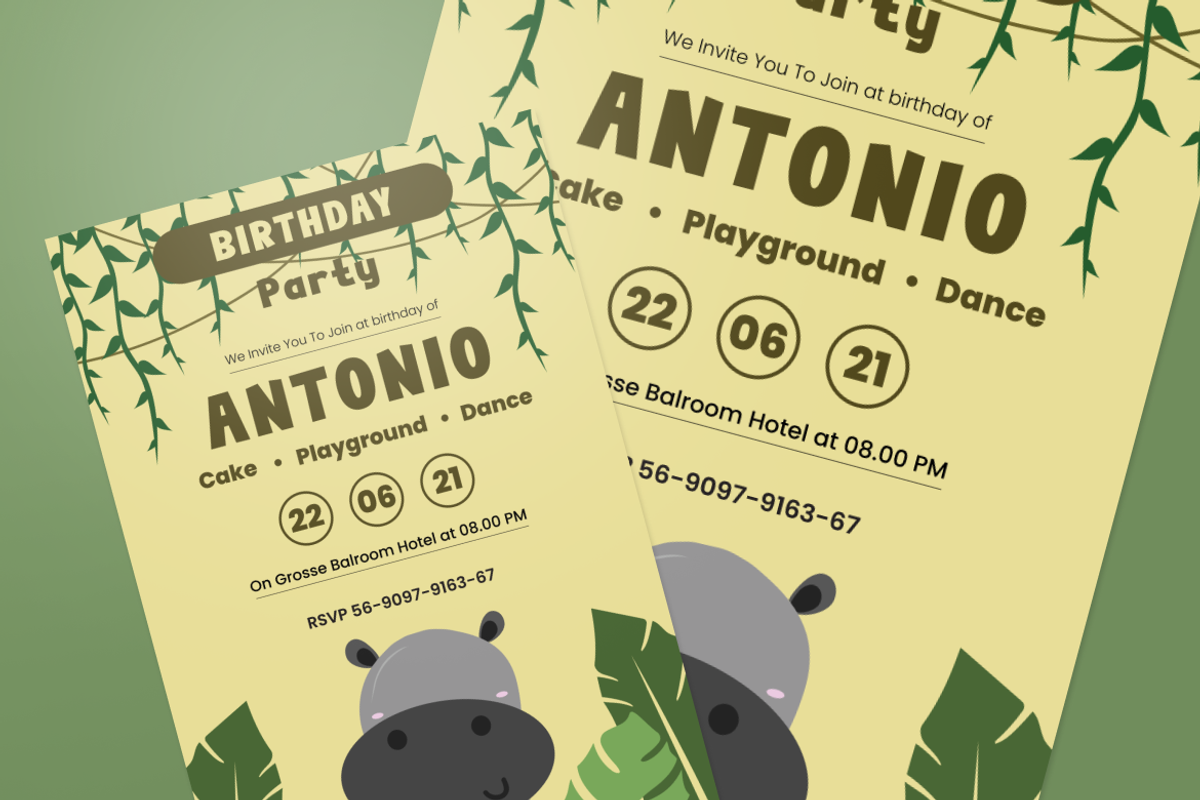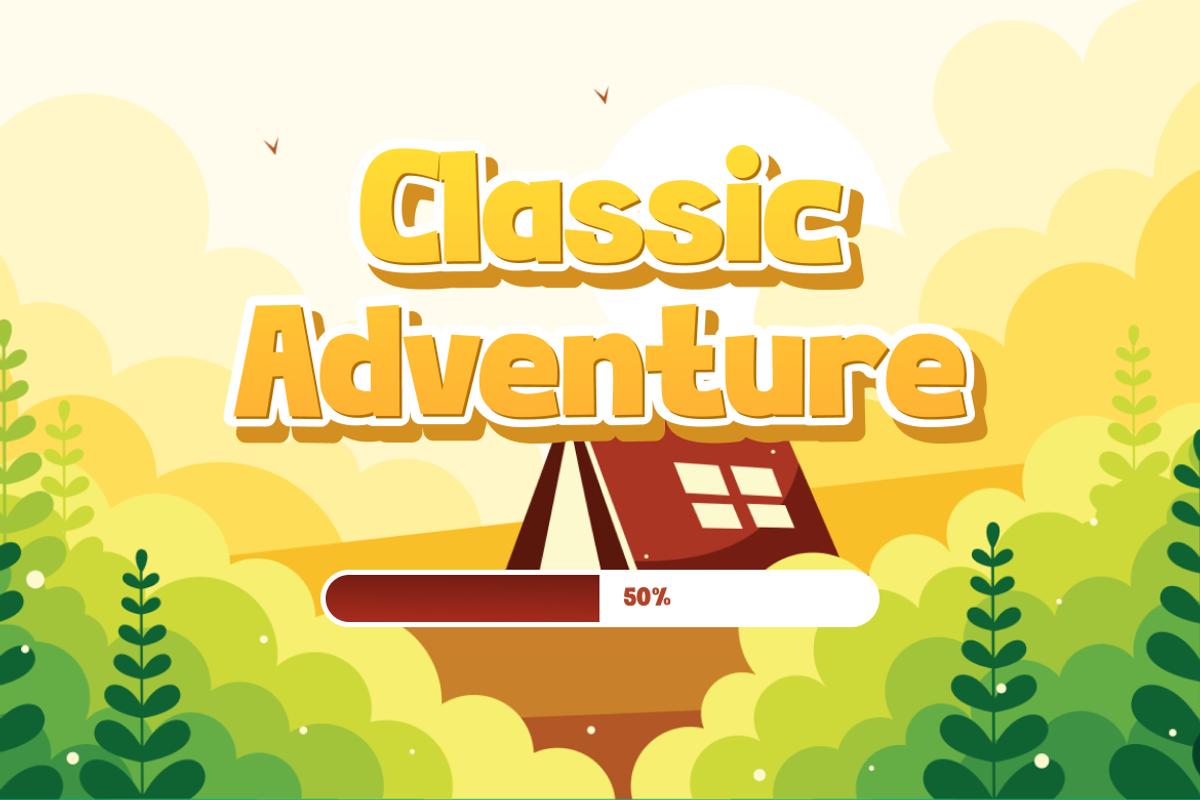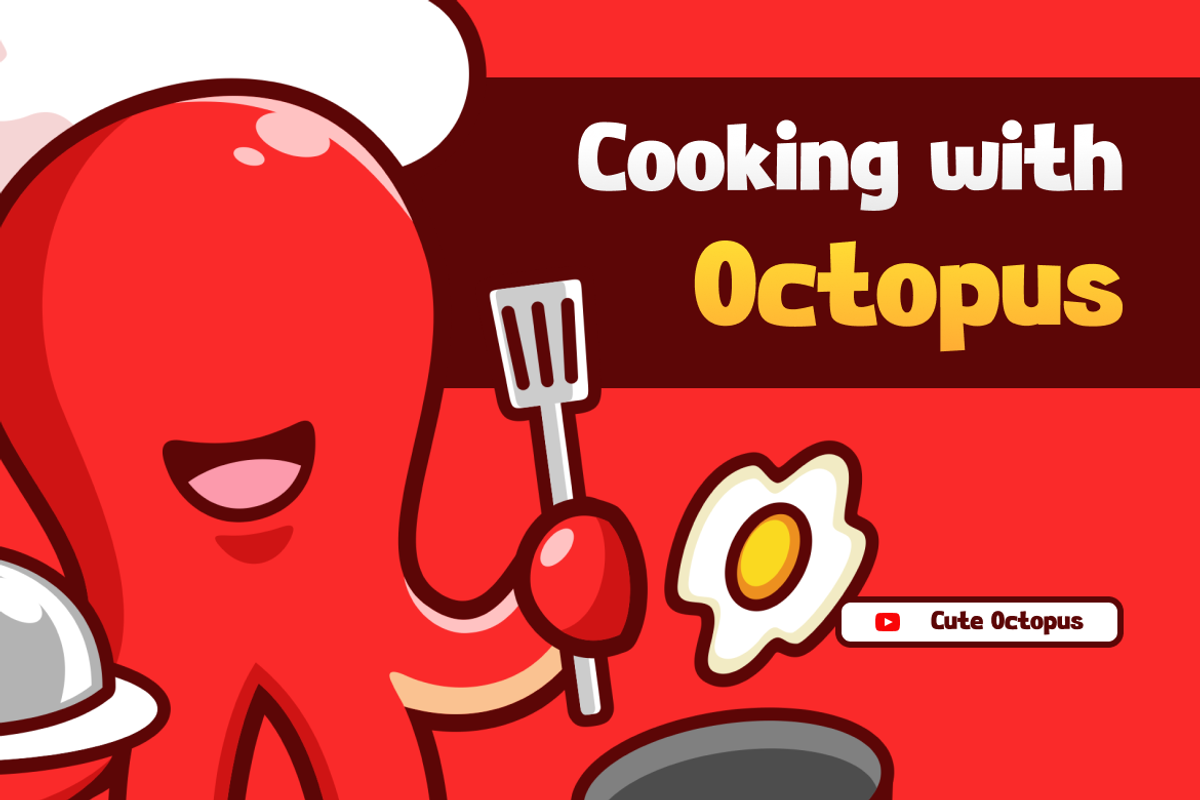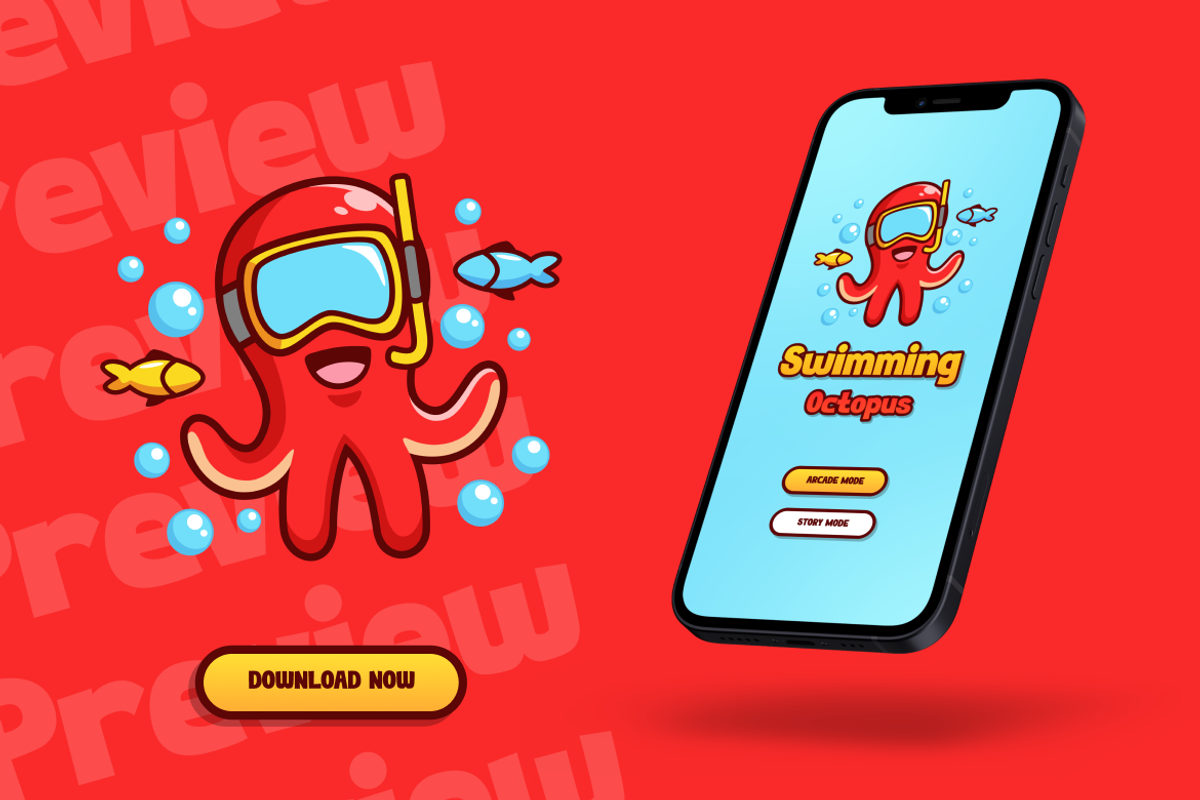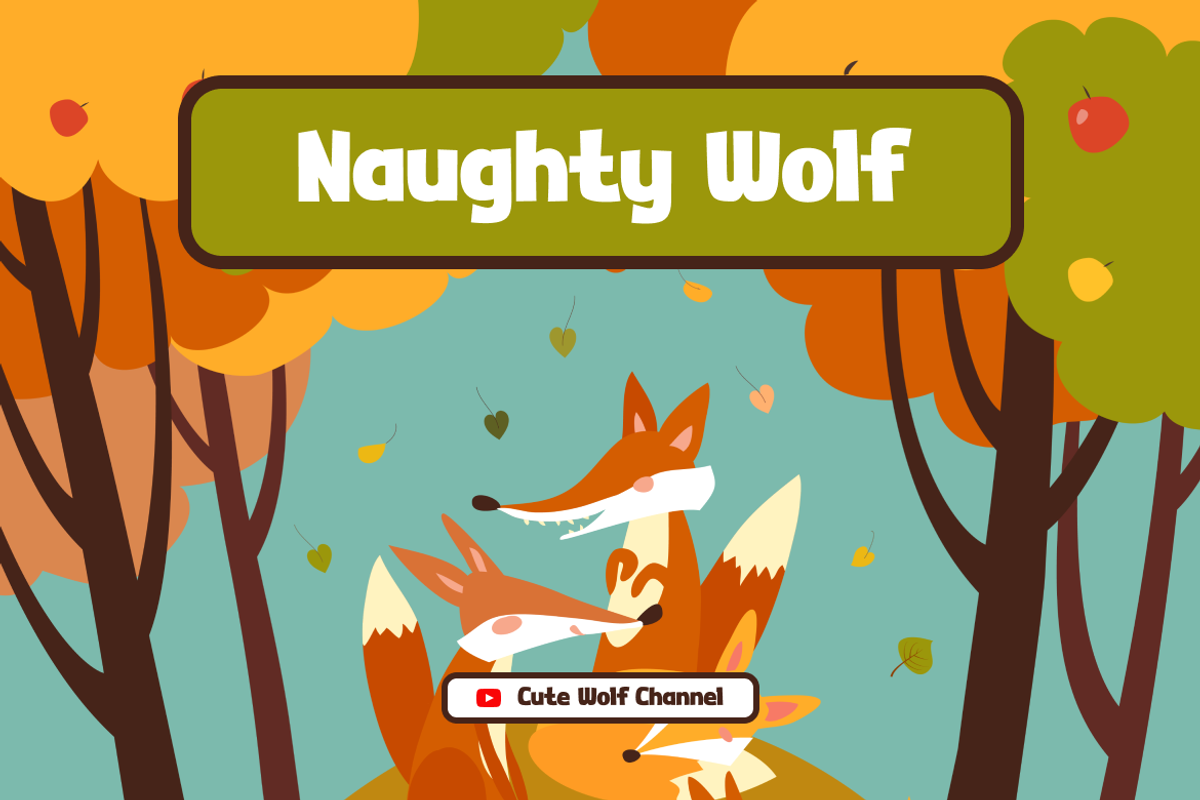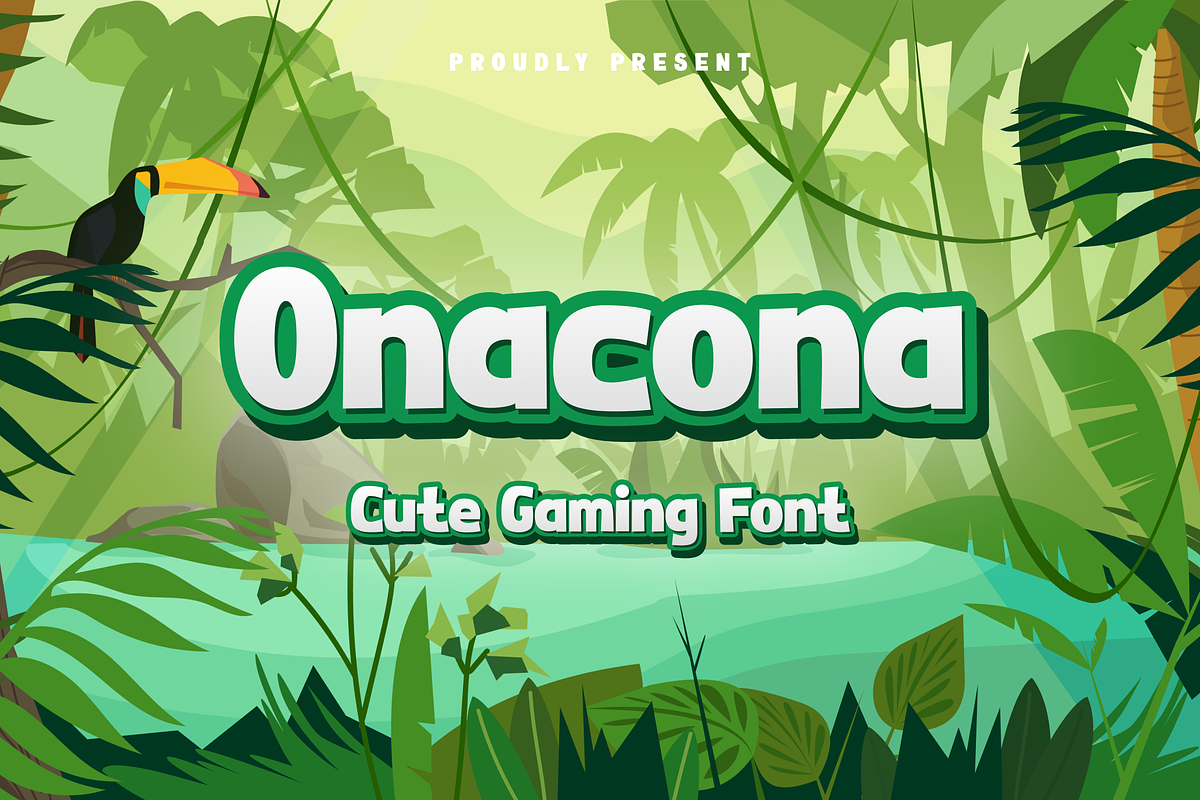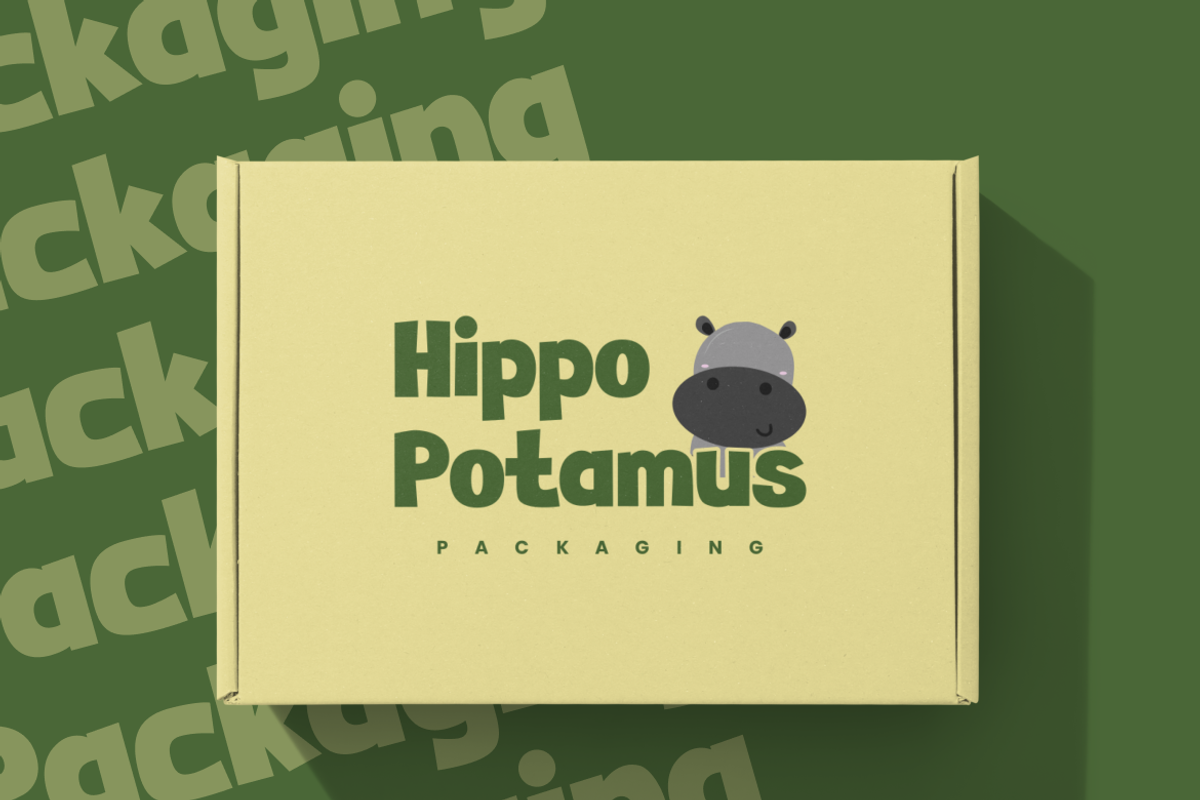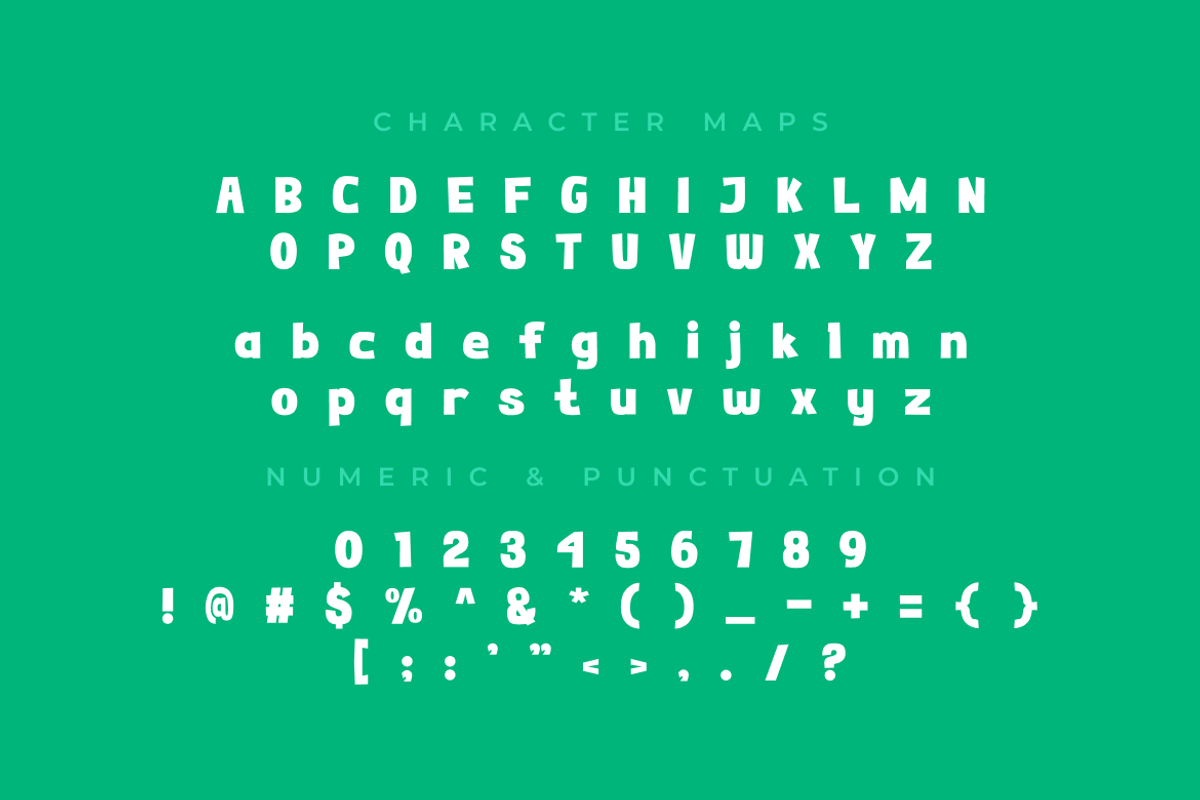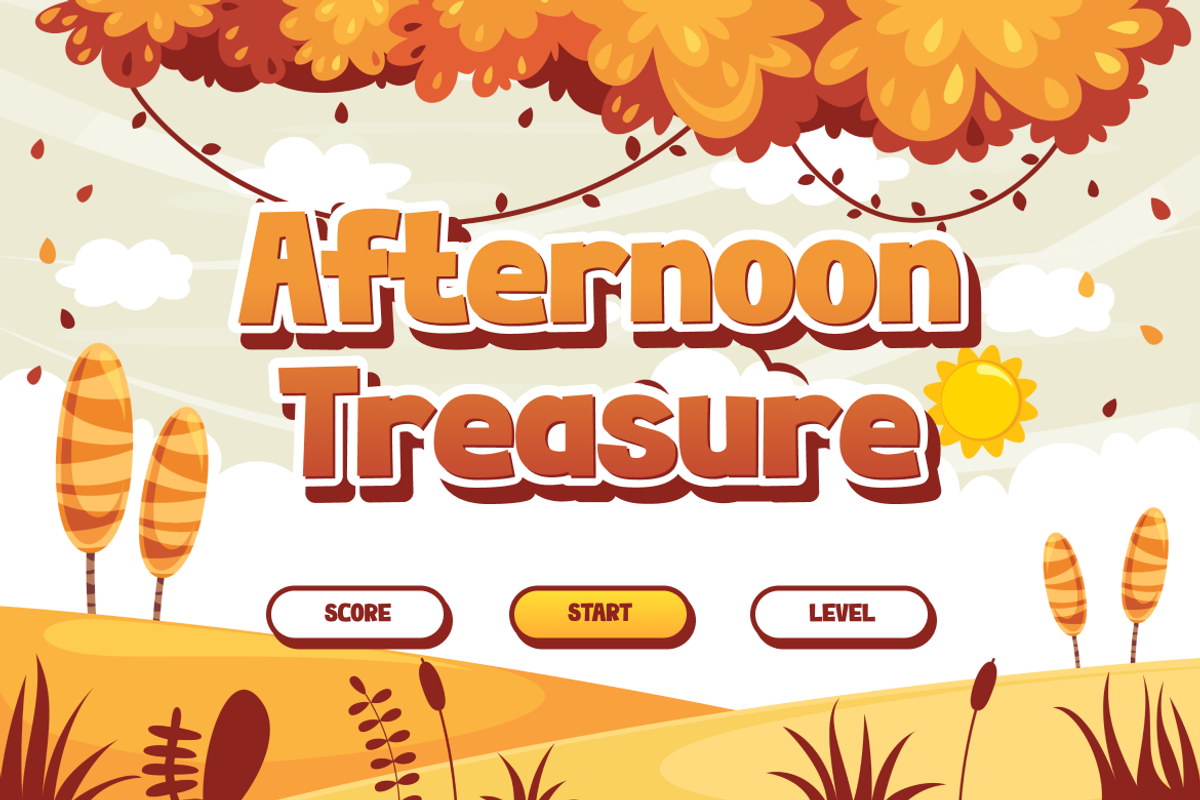
Onacona - Cute Gaming Font
Onacona – Cute Gaming Font
Simple sans with cartoon touch in it. The read-ability is clear and make the children engaged without feeling being rules by adults.
Suit perfect for story books market, online games, teens event posters, school supplies font, poster, movie title, youtube covers, youtube thumbnails, social media page covers, and so on...